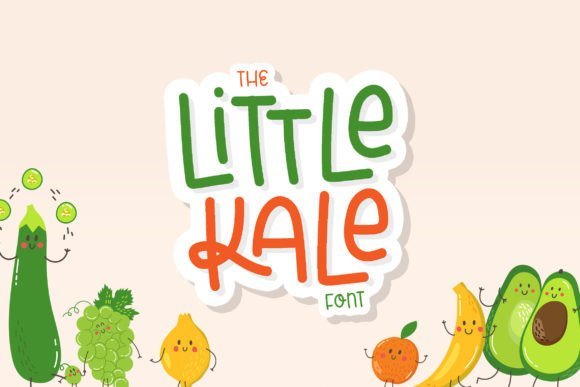
A Little Something to Brighten Up Your Designs
Have you ever stared at a blank canvas, trying to conjure up the perfect font to bring your creative vision to life? We’ve all been there – the frustration of searching for the perfect typeface to match our mood, style, and message. It’s in these moments that we stumble upon something truly special, like A Little Kale Font.
This charming handwritten font is designed to add a touch of whimsy and personality to your designs. With its playful curves and quirky charm, A Little Kale Font is the perfect choice for anyone looking to inject some fun and friendliness into their work. Whether you’re a seasoned designer or just starting out, this font is sure to be a valuable addition to your toolkit – and a little something to brighten up each of your designs.
A Little Kale Font Key Features
- Unique Characteristics: A playful, handwritten font with a whimsical feel, ideal for creative projects and designs
A Little Kale Font Review
As a designer, I was excited to dive into the world of A Little Kale Font. Here’s my honest review of this quirky, hand-drawn font.
- Unique aesthetic: The font’s hand-drawn style gives it a charming, organic feel that’s perfect for creative projects.
- Wide character set: The font includes a wide range of characters, including international characters, which is a big plus for designers who work with diverse languages.
- High-resolution support: The font looks great at all resolutions, from small web fonts to large print projects.
- Not suitable for body text: While the font is great for headlines and titles, its irregular shape and letterforms can make it difficult to read in large blocks of text.
- May require adjustments: Depending on the project, you may need to adjust the font size or spacing to get the best results.
Overall, I think A Little Kale Font is a great addition to any designer’s toolkit. While it may not be suitable for every project, its unique style and wide character set make it a great choice for creative projects where you want to stand out.
Tip: Use A Little Kale Font for headings or titles to add a playful touch to your design.
Tip: Use A Little Kale Font for creative projects that require a unique and whimsical touch.
Tip: Use A Little Kale Font for presentations or documents that require a friendly and approachable tone.
A Little Kale Font is perfect for:
- Creative projects
- Children’s products and education
- Playful marketing campaigns
Remember to use A Little Kale Font in moderation to avoid overwhelming your audience.
Dancing Script Font is a fun and lively script font perfect for creating a sense of energy and playfulness. It’s ideal for branding, advertising, and social media designs where a touch of whimsy is needed.
What is the recommended font size for A Little Kale Font?
The recommended font size for A Little Kale Font is between 10pt and 24pt. This range allows the font to be easily readable while still maintaining its unique character and charm. However, feel free to experiment with different font sizes to find the perfect fit for your design.